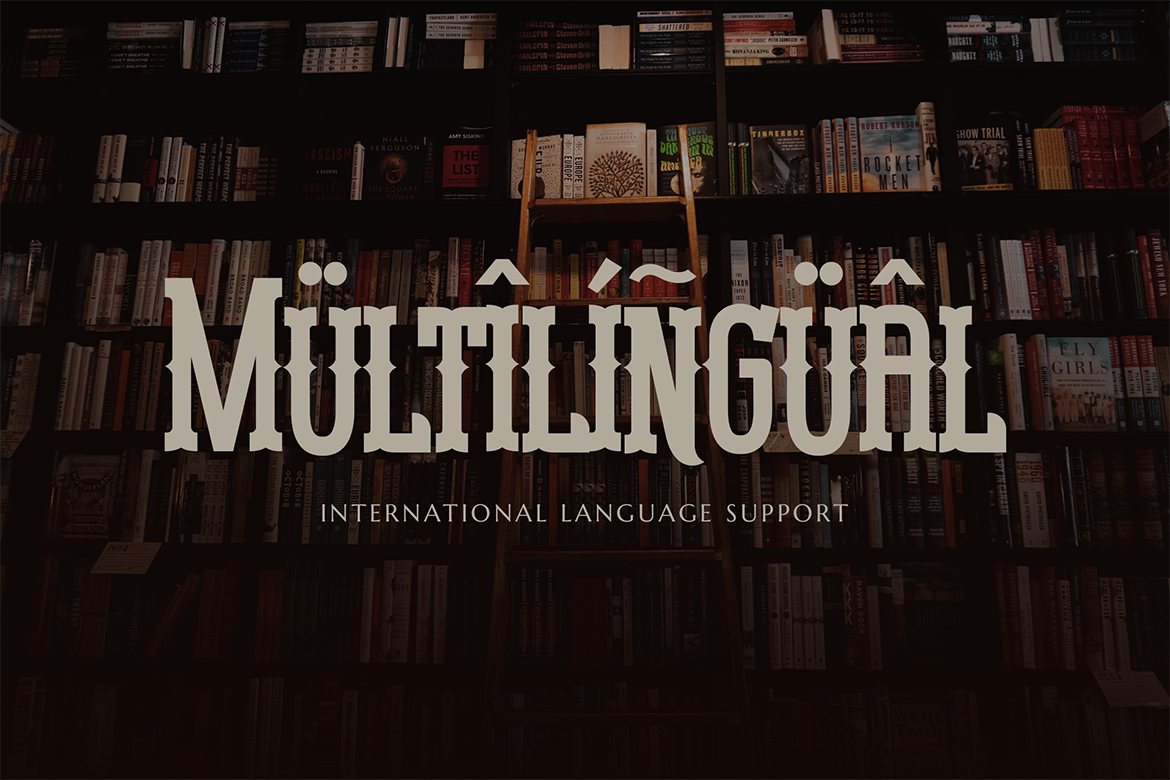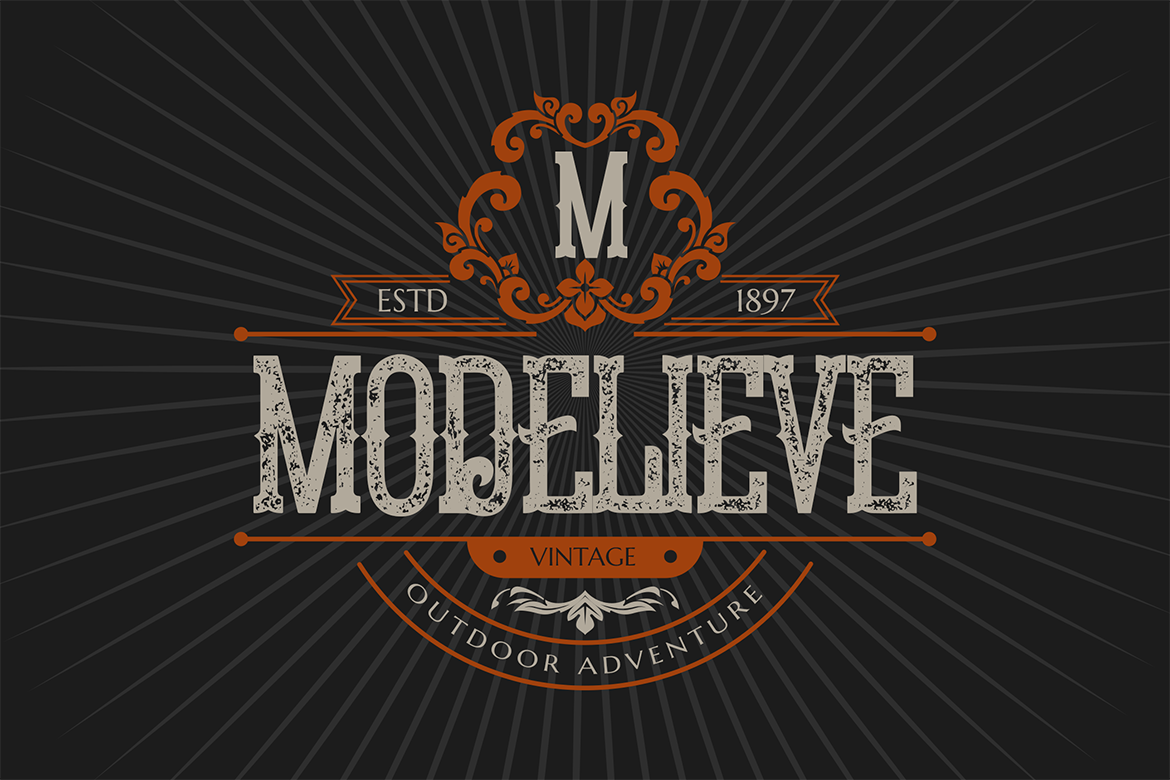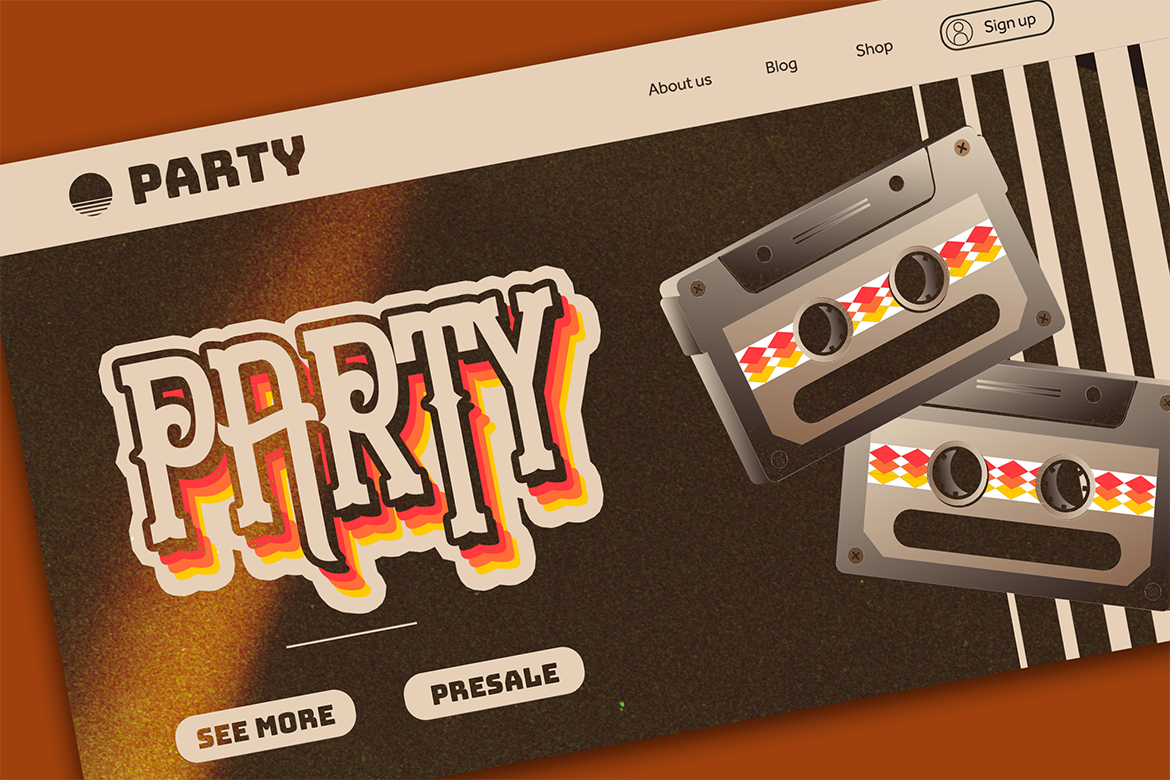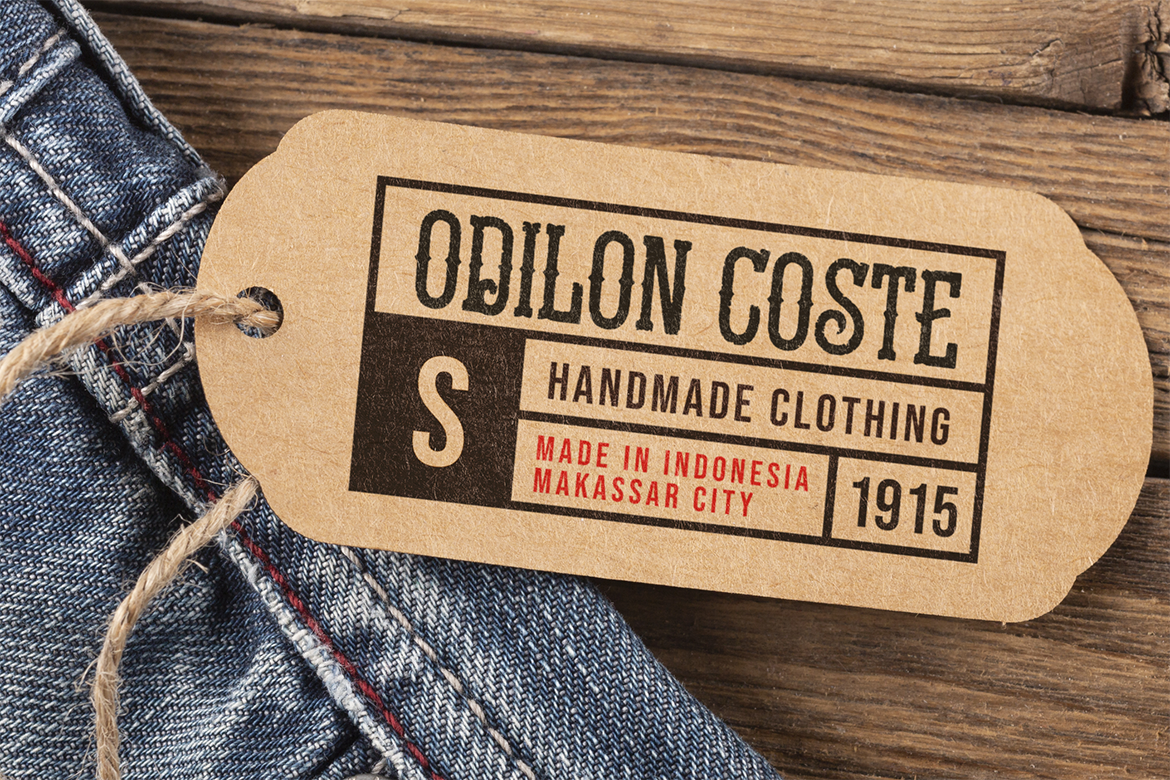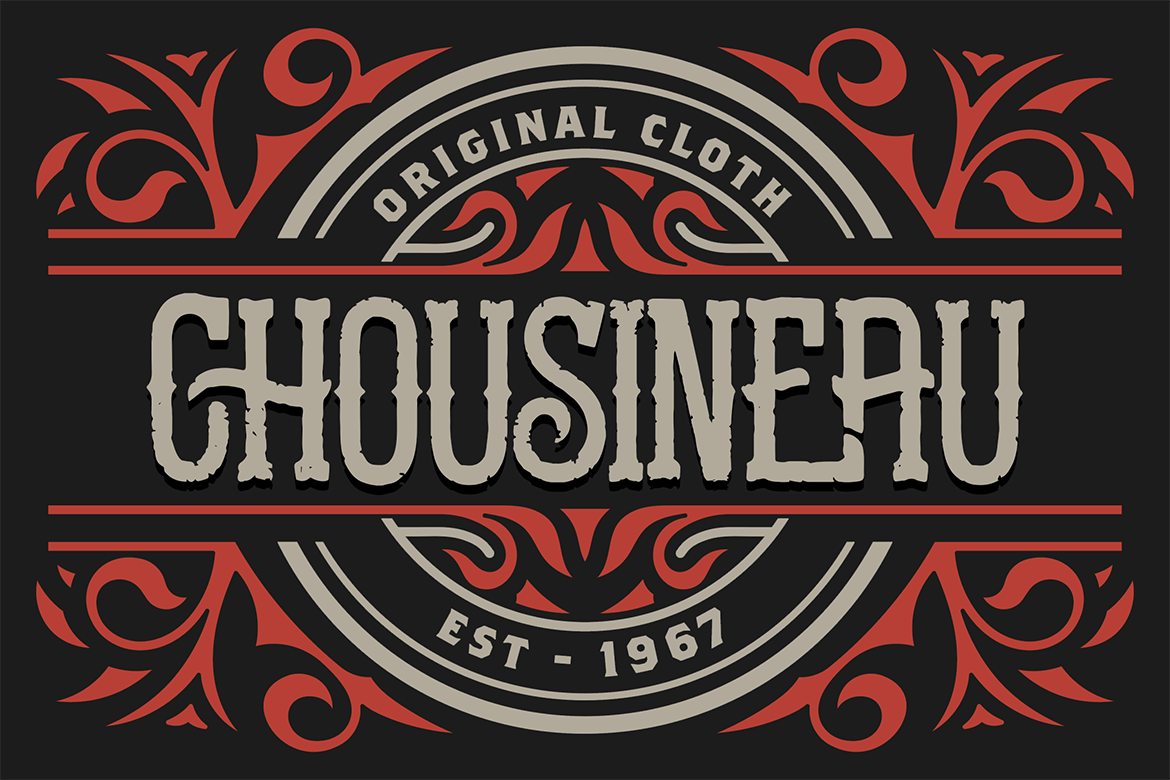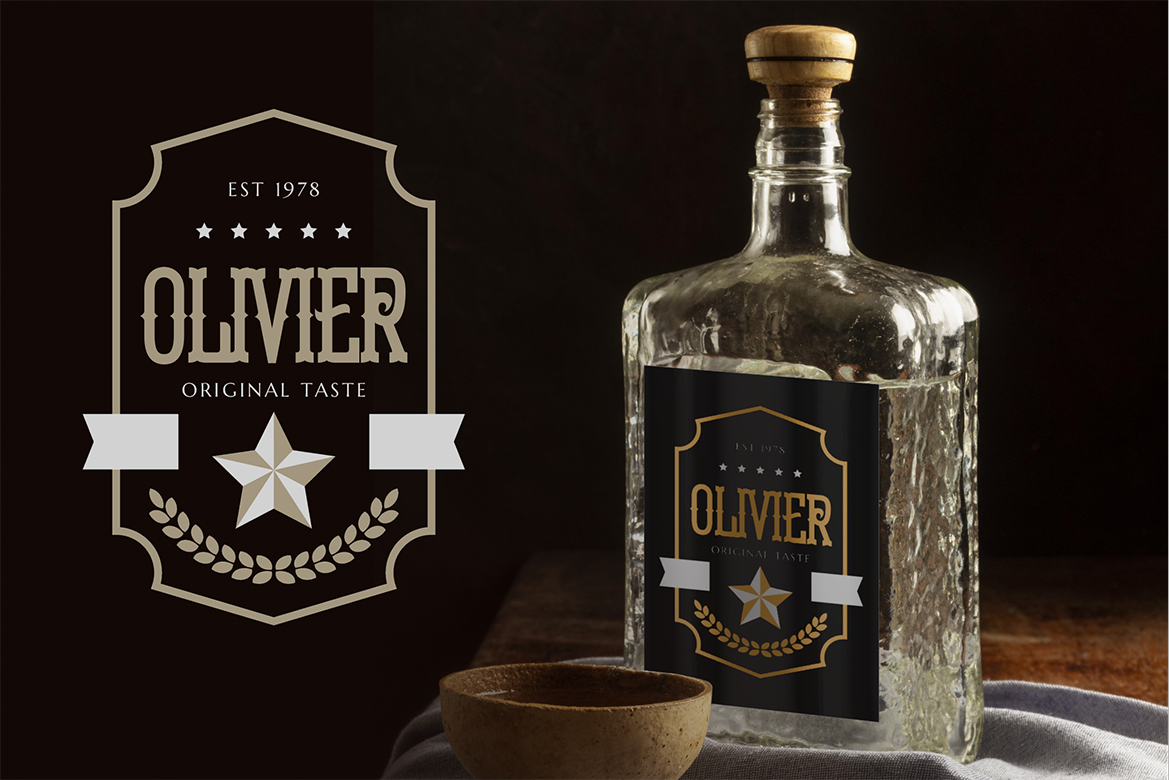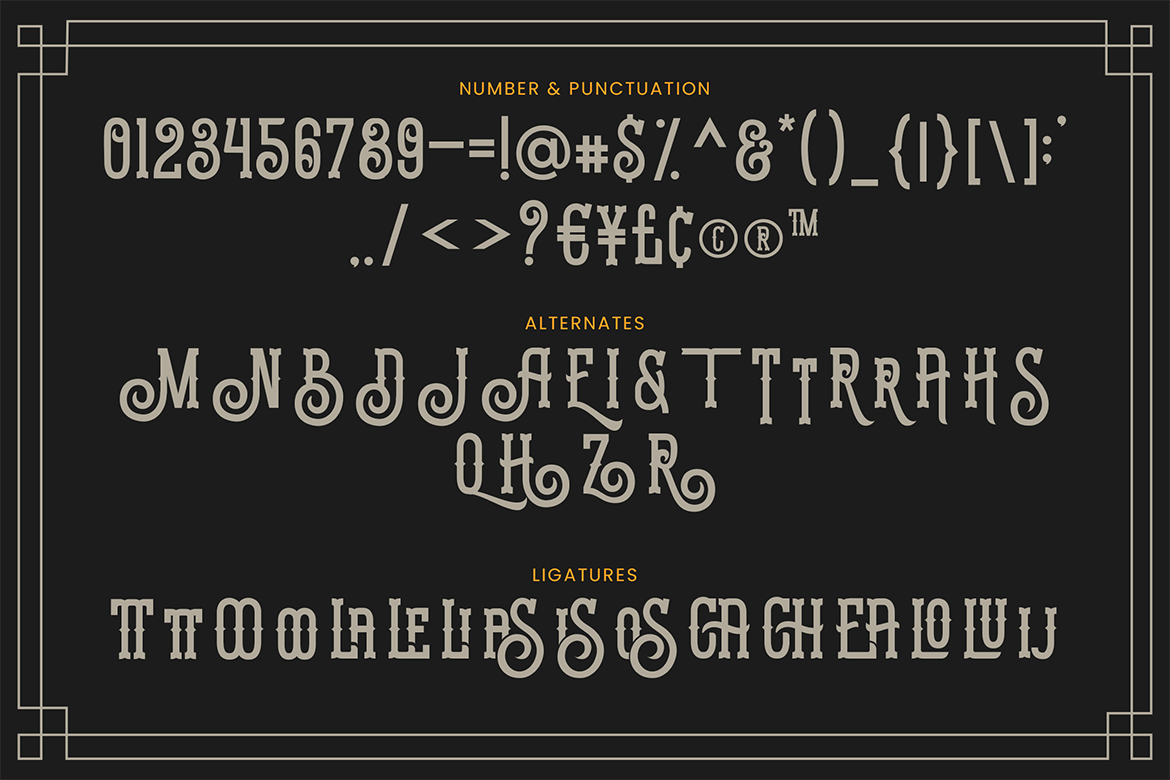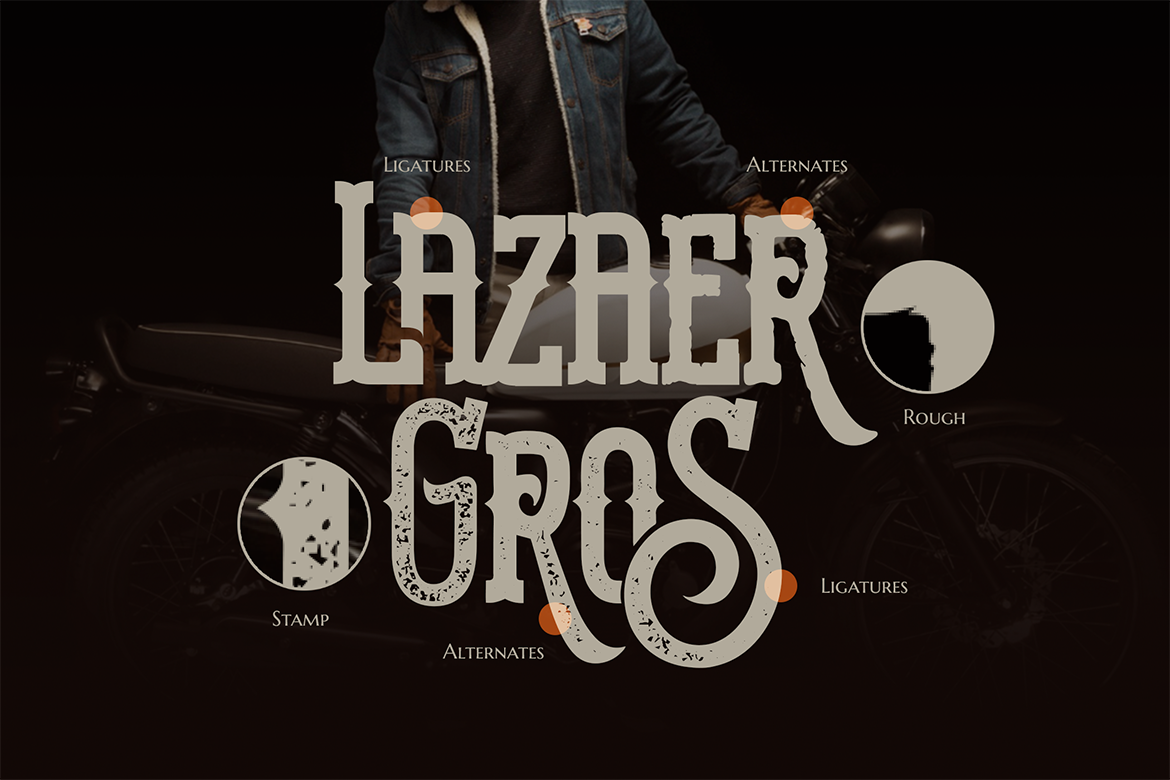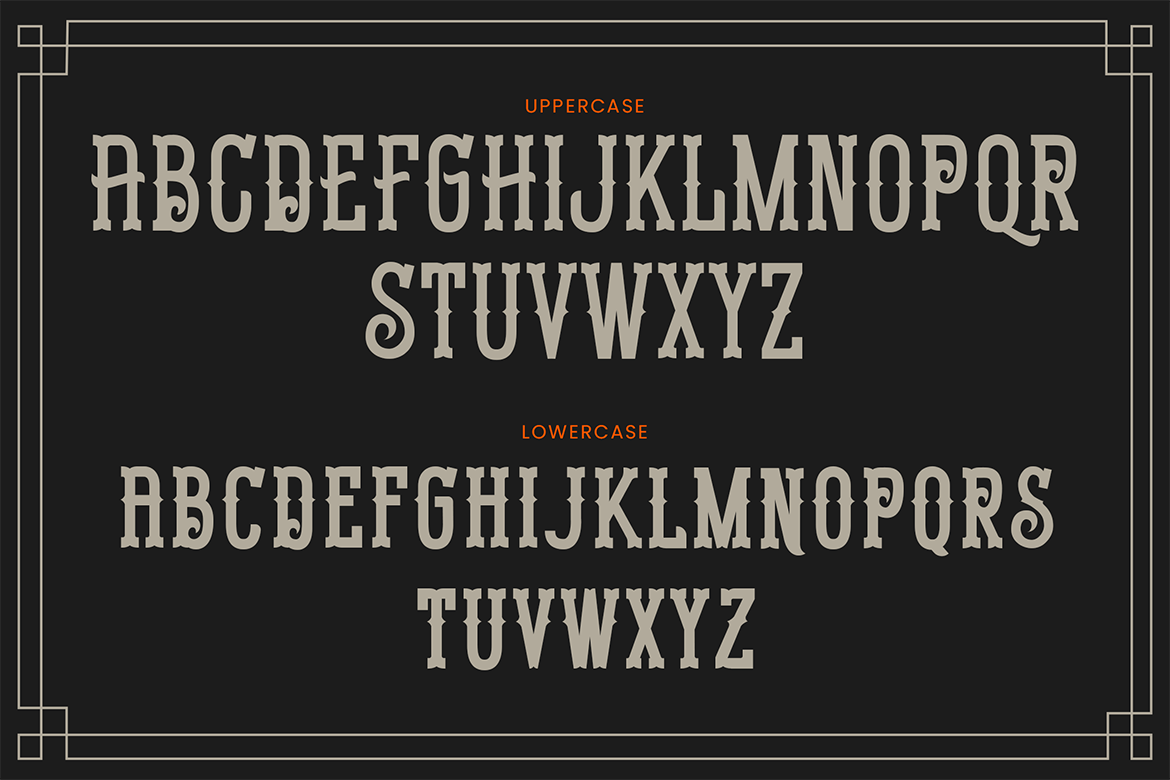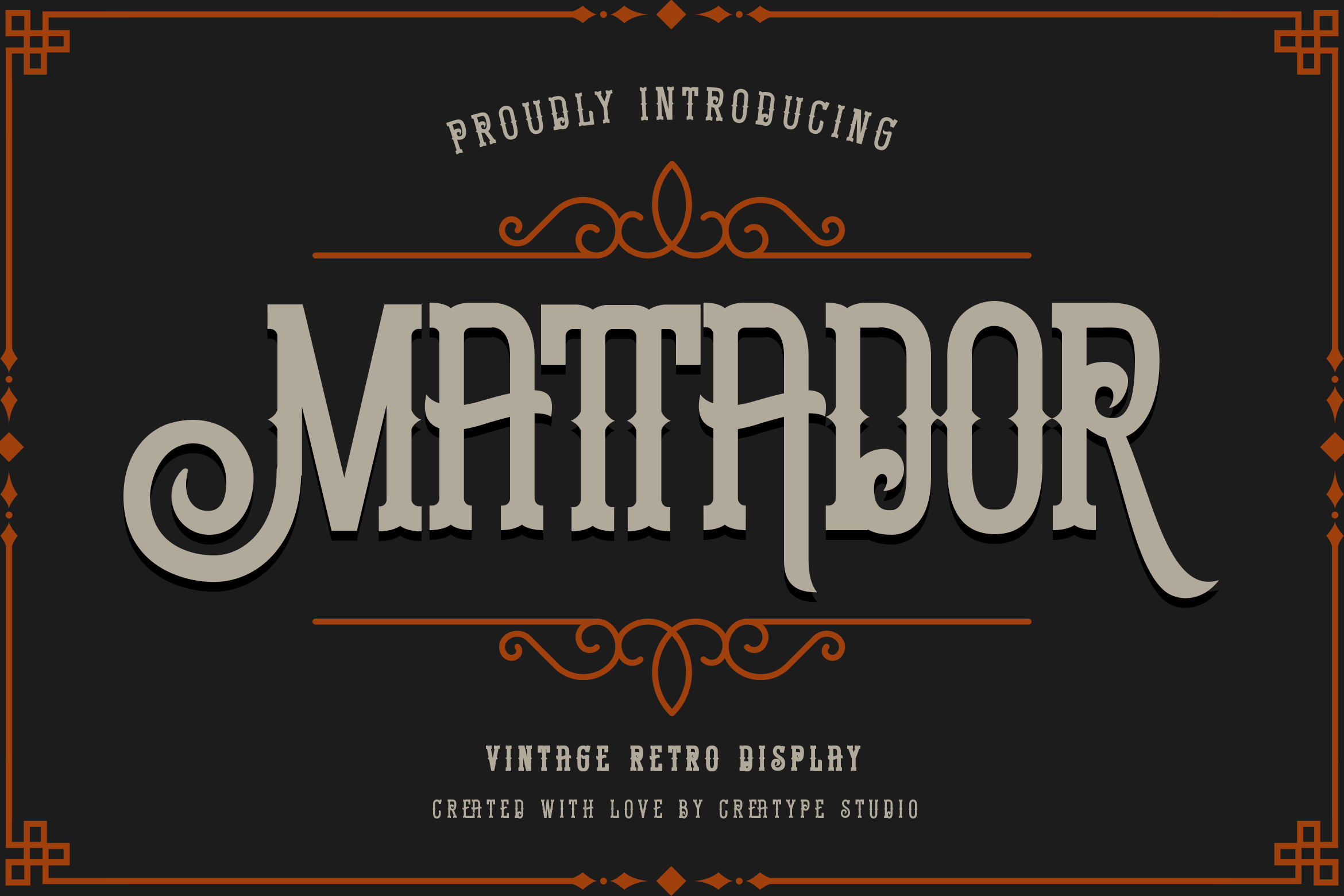
Mattador, a vintage display font that infuses nostalgia into modern design, perfect for capturing attention.
Mattador is perfect for branding projects, logos, wedding designs, social media posts, advertisements, product packaging, product designs, label, photography, watermark, invitation, stationery, and any projects that need handwriting taste.
Mattador Vintage Retro Display